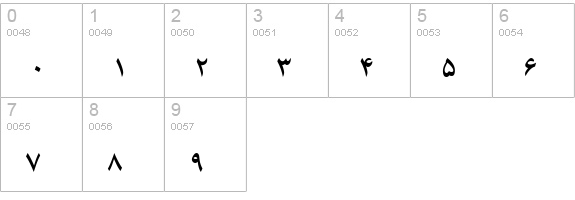
B Karim Bold is a strong, high-contrast variant in the B typeface family \xE2\x80\x94 well suited to headlines, attention-grabbing titles, and strong calls-to-action.
B Karim Bold font is a striking and bold typeface that exudes confidence and strength. With its thick and powerful letterforms, this font is perfect for making a statement in headlines, titles, and logos. The sharp edges and clean lines of B Karim Bold give it a modern and contemporary feel, making it an excellent choice for projects that require a strong and impactful design. The best part about B Karim Bold font is that it is available for free download at FontsMarket.com. You can easily access this font and use it in your projects without any cost or restrictions. Whether you're working on a branding project, poster design, or website layout, B Karim Bold font will help you make a bold and memorable impression. Don't miss out on this fantastic opportunity to enhance your designs with the striking B Karim Bold font. Download it for free today and unleash its power in your creative projects.